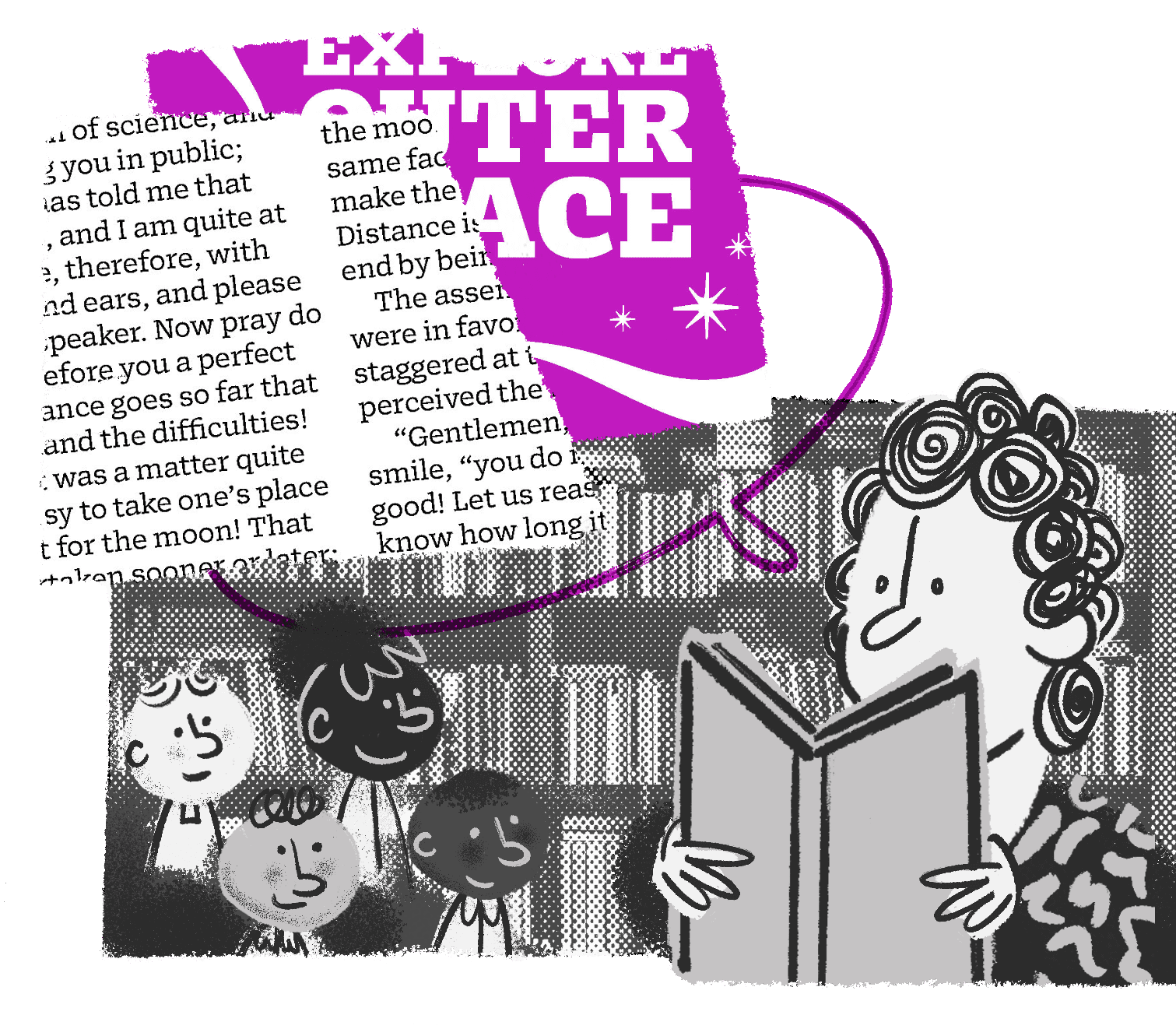
Bezzia
A new evolution of the slab serif. Bezzia was inspired by the entomology collections at California Academy of Sciences. Imbued with academic gravity and timeless style, Bezzia brings natural brilliance to any project.
8 Weights
Matching Italics
16 Total Styles
Case Punctuation
Lining & Old Style Figures
Tabular Figures
Math & Currency
Dynamic Fractions
Circled Figures
Directional Arrows
Supports 200+ Languages
Bezzia is a natural selection for your next project.